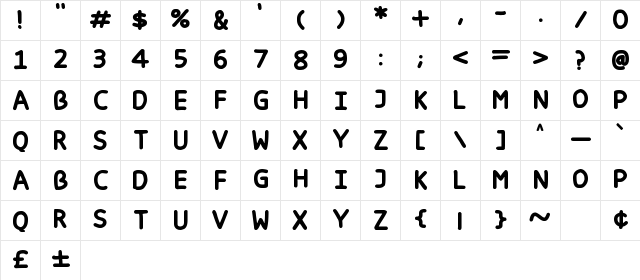
Happy markers Regular
| Designer | Joseph Dawson |
Design Context for Happy markers Typeface
Happy markers offers clean, dependable letterforms without strong stylistic allegiance, making it a practical choice for designers who need flexibility.